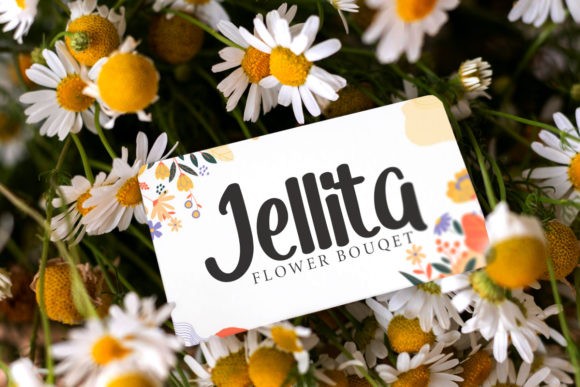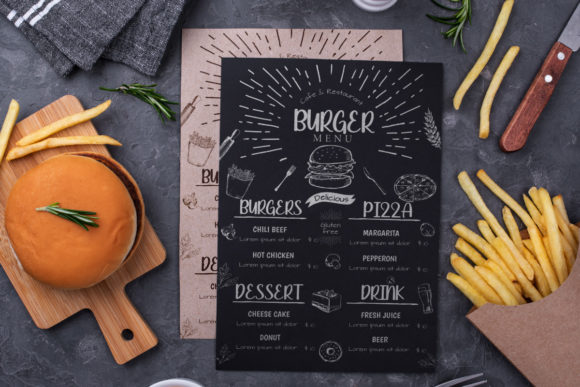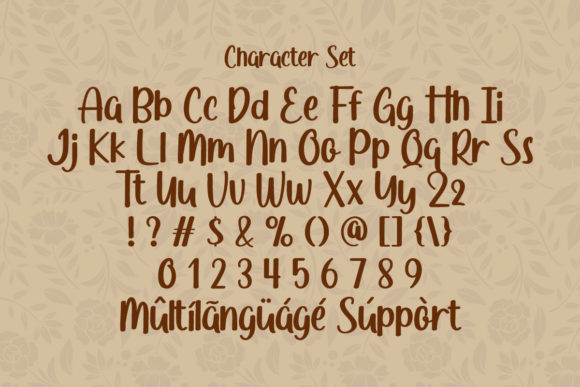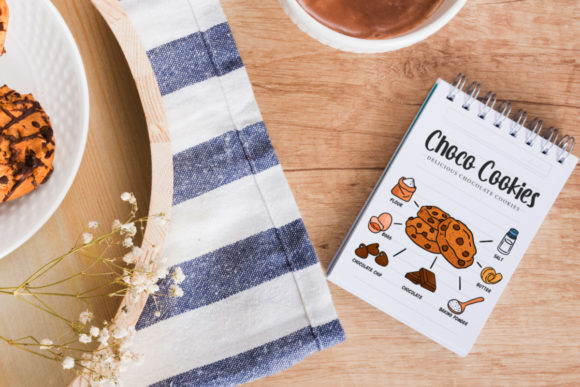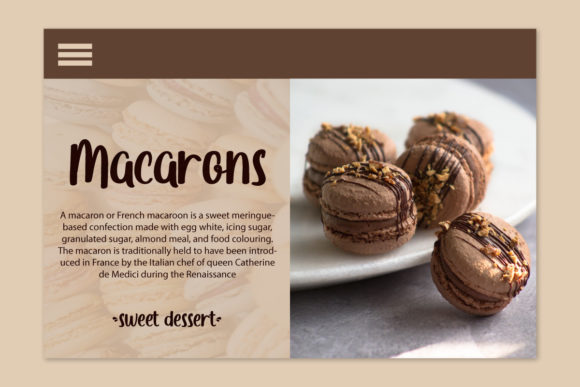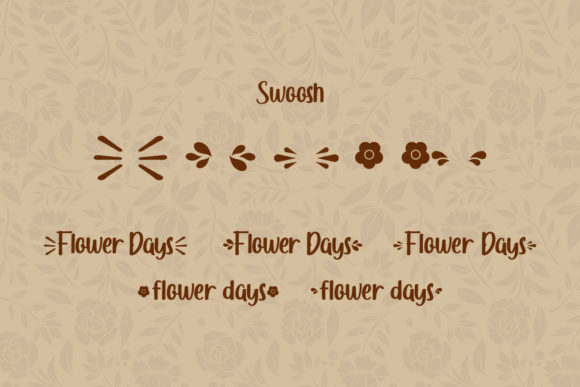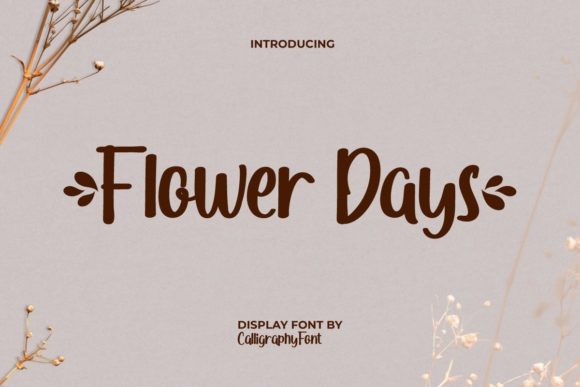
Introducing Flower Days Font: The Perfect Addition to Your Creative Projects
Are you a designer, crafter, or DIY enthusiast looking for a unique and charming font to add a personal touch to your projects? Look no further than Flower Days Font, a lovely script font that features playful characters that seem to dance along the baseline. With its whimsical and elegant design, Flower Days Font is sure to make your creative ideas stand out from the crowd.
What is Flower Days Font?
Flower Days Font is a beautiful script font that is perfect for a variety of creative projects, including invitations, greeting cards, crafts, and more. The font features charming, cursive characters that are adorned with subtle floral elements, giving it a playful and romantic feel. The letters seem to dance along the baseline, creating a sense of movement and energy that is sure to capture the attention of your audience.
Key Features of Flower Days Font
- Playful and charming design: The font features whimsical and elegant characters that are perfect for adding a personal touch to your projects.
- Script font style: The cursive design of Flower Days Font gives it a romantic and feminine feel that is perfect for a variety of creative projects.
- Floral elements: The subtle floral elements incorporated into the font design add a touch of elegance and sophistication.
- Easy to read: Despite its playful design, Flower Days Font is easy to read and understand, making it perfect for use in a variety of contexts.
Uses for Flower Days Font
Flower Days Font is a versatile font that can be used in a variety of creative projects, including:
- Invitations and greeting cards: The font’s playful and romantic design makes it perfect for use in wedding invitations, birthday cards, and other special occasion greetings.
- Crafts and DIY projects: Flower Days Font is a great addition to any craft or DIY project, including scrapbooking, journaling, and more.
- Signage and displays: The font’s bold and playful design makes it perfect for use in signage and displays, including storefront signs, banners, and more.
- Digital projects: Flower Days Font can also be used in digital projects, including social media graphics, blog posts, and more.
Why Choose Flower Days Font?
There are many fonts available for use in creative projects, but Flower Days Font stands out from the crowd for several reasons:
- Unique design: The font’s playful and charming design is unlike anything else on the market, making it a great choice for designers and crafters looking to add a personal touch to their projects.
- High-quality design: The font is designed with high-quality and precision, ensuring that it looks great in any context.
If you’re looking for a unique and charming font to add a personal touch to your creative projects, look no further than Flower Days Font. With its playful and elegant design, this lovely script font is sure to make your projects stand out from the crowd. Whether you’re a designer, crafter, or DIY enthusiast, Flower Days Font is a great addition to your creative toolkit.